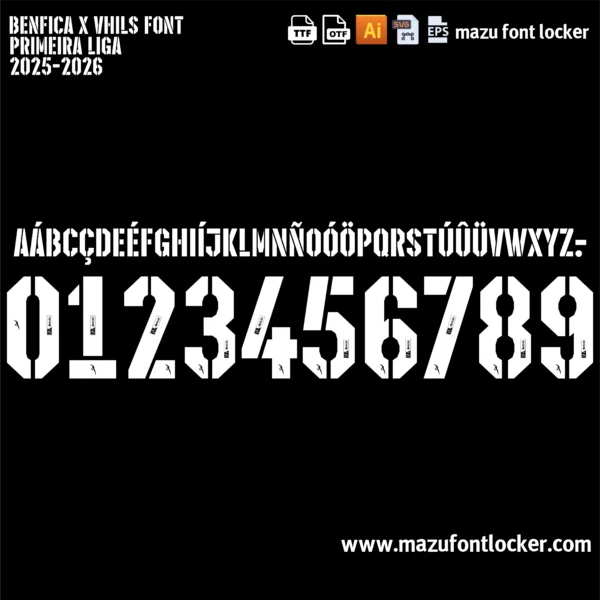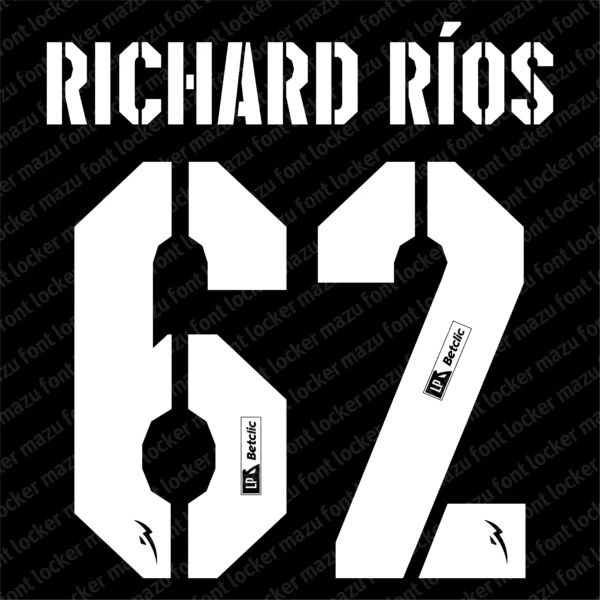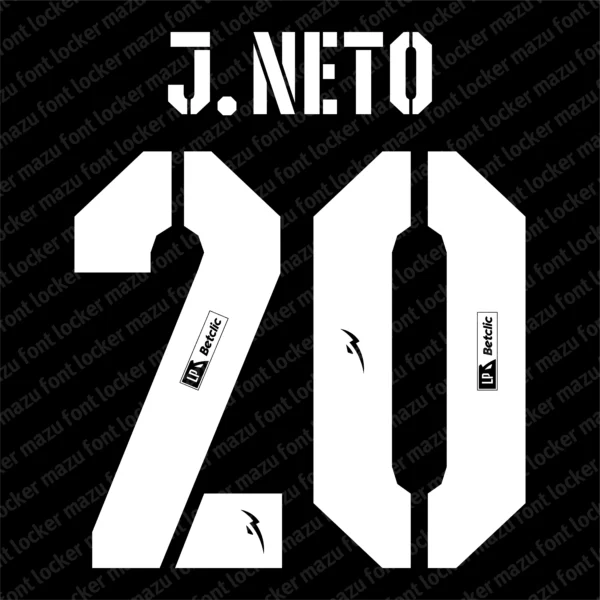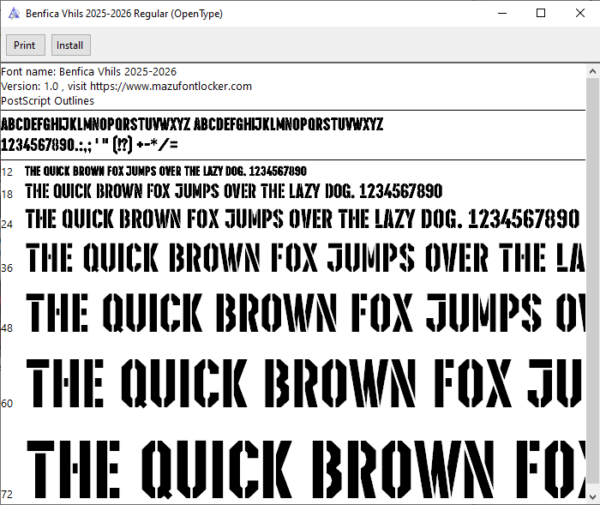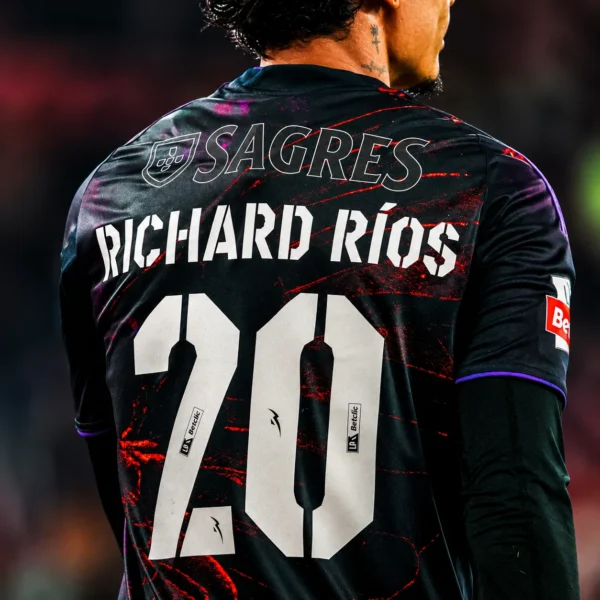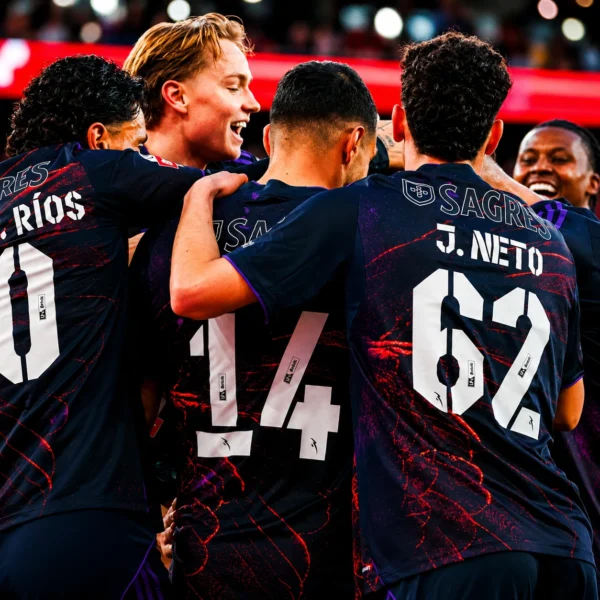
Benfica X Vhils 2025-2026 Font Vector – Incredible Artistic Eagles Vector Kit
Channeling the proud Águias spirit with raw urban edge, it features the powerful and distinctive design that merges football heritage with contemporary art. Perfect for premium jersey mockups, football designs, and collector-worthy Benfica X Vhils art.
Benfica X Vhils 2025-2026 Font Vector – Urban Art Typeface
The Benfica X Vhils 2025-2026 Font Vector is a premium typeface that captures the distinctive lettering from SL Benfica’s special Adidas x Vhils collaboration jersey for the 2025-2026 season. This limited-edition vector font kit reflects the fusion of football heritage with raw urban street art.
Designed for creative professionals and passionate Benfica supporters, the Benfica X Vhils 2025-2026 Font Vector offers exceptional authenticity for jersey mockups, artistic fan merchandise, campaign visuals, social media designs, and more. It perfectly complements the bold, textured aesthetic of this groundbreaking street football-inspired collection.
Why Choose Benfica X Vhils 2025-2026 Font Vector
This font set is prized for its artistic precision and unique character. Every glyph has been carefully recreated to match the custom typography featured on the Vhils special edition shirts. It brings the perfect blend of Portuguese football tradition and contemporary urban edge to your creative work.
The letterforms in the Benfica X Vhils 2025-2026 Font Vector are bold, modern, and slightly condensed with artistic detailing. The clean yet powerful strokes deliver strong visual impact while preserving high readability — ideal for both large back numbers and detailed graphics.
The numerals boast athletic proportions, sharp contours, and balanced weight, making them stand out dramatically on the jersey while ensuring crisp results across all print and digital applications.
- Full uppercase A–Z and numbers 0–9 in the official 2025-2026 Vhils style
- Special SL Benfica crest glyph for authentic number detailing
- Multilingual Latin support with diacritics
- Includes precise crest placement used under player numbers on the special kit
Benfica X Vhils 2025-2026 Collaboration
In a groundbreaking partnership with Adidas and renowned Portuguese street artist **Vhils** (Alexandre Farto), SL Benfica unveiled a special edition jersey for the 2025-2026 season that celebrates the roots of street football and urban culture. This artistic collection bridges the passion of the beautiful game with raw, layered street art, creating a powerful symbol of identity and creativity.